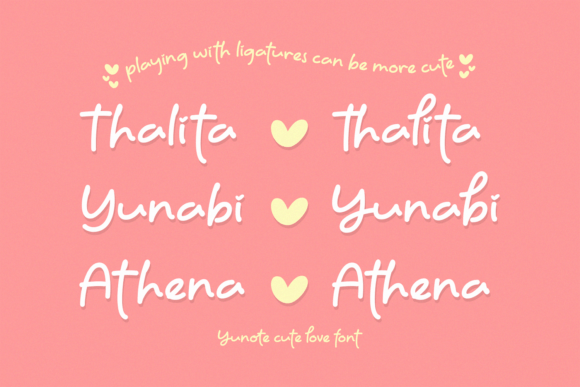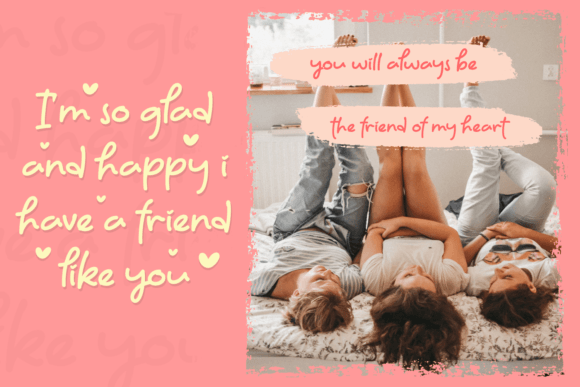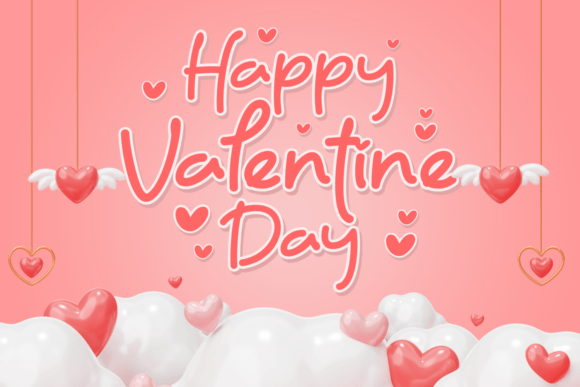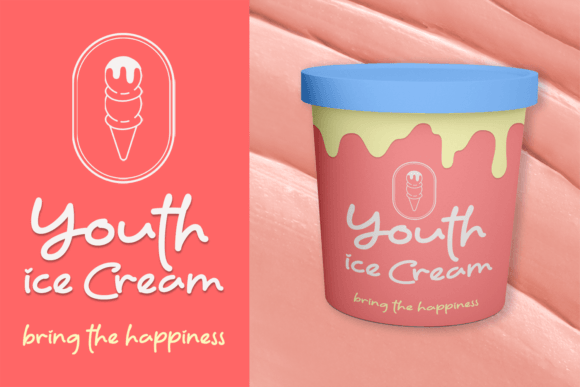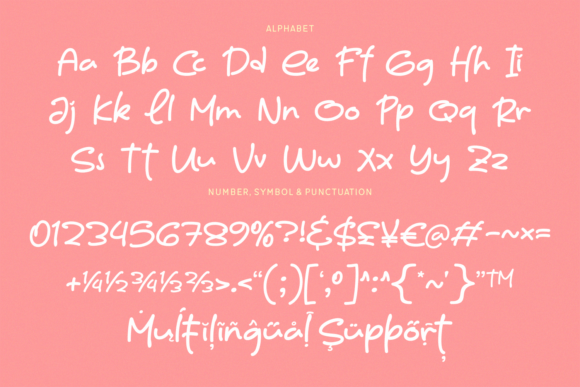
About Yunote
Yunote is a sweet and cursive handwritten font. This gentle font will look gorgeous on a variety of design ideas. It will add a joyful and romantic touch to each of your projects! Perfectly fit for branding, logo, wedding things, greeting cards, fashion, lookbook, marketing promotion, and anytime you want to look fancy and elegant but still casual.